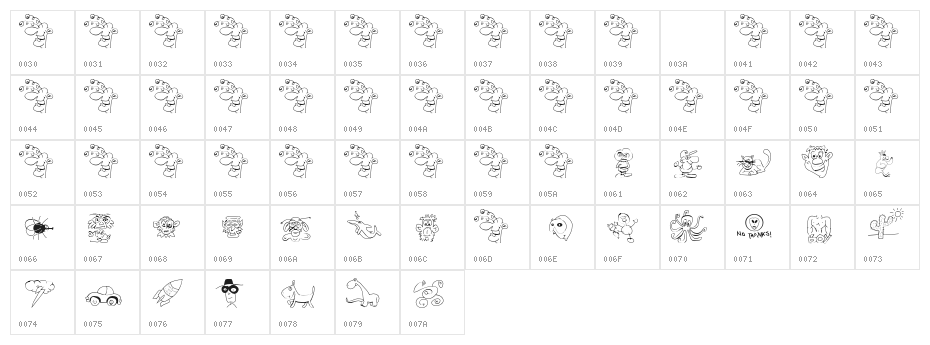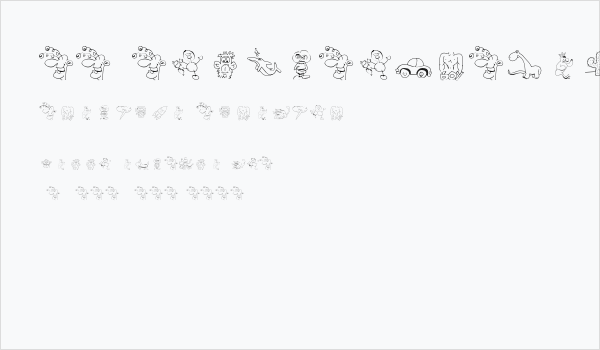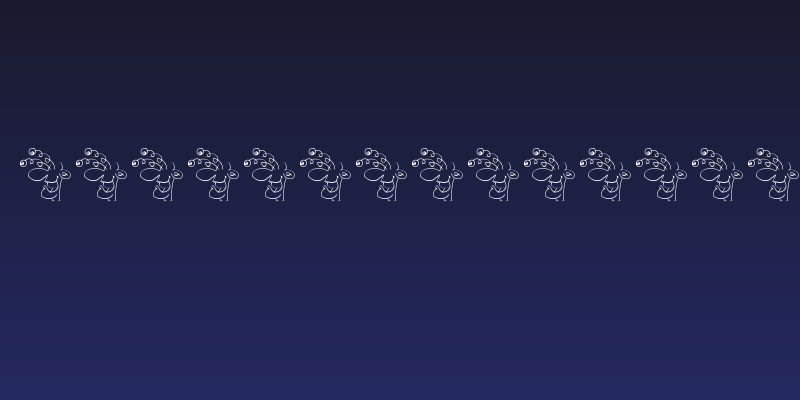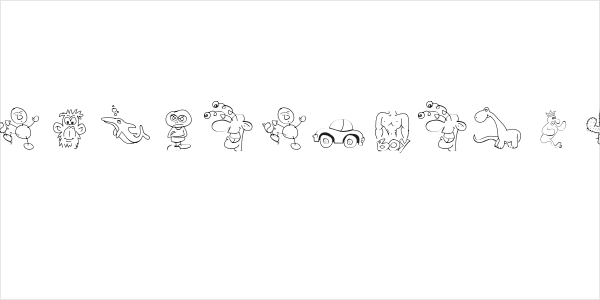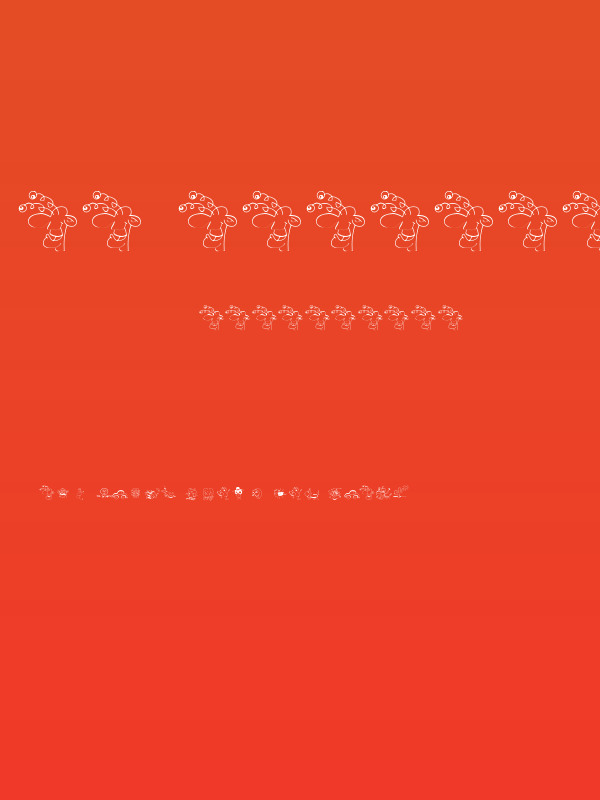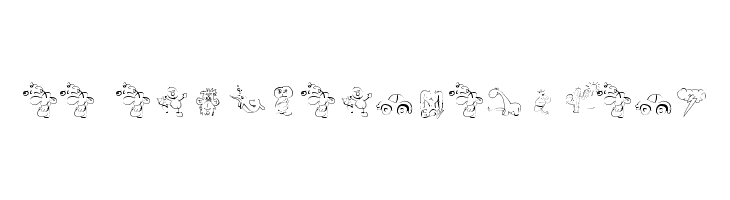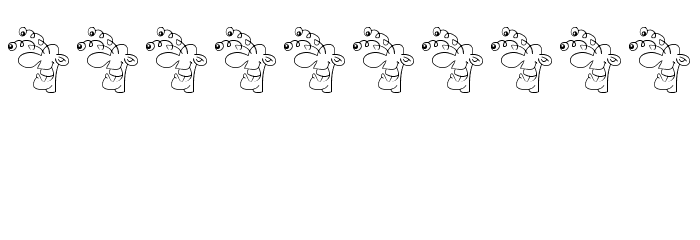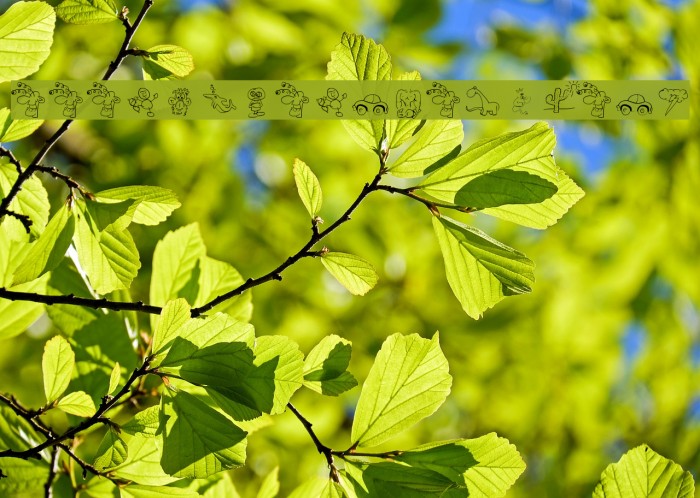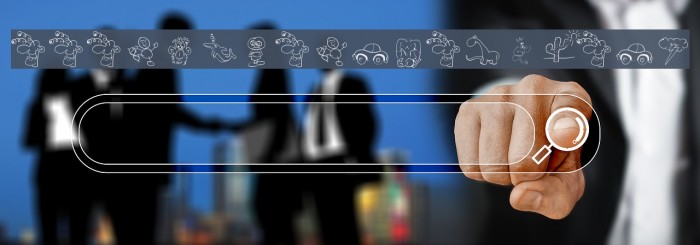
FE-PolkaYourEyesOut Font
| Overall Style | Whimsical, Playful, Cartoonish, Decorative |
| Use Case | Headlines, Posters, Logos, Children's materials, Informal invitations |
| Proposed Projects | Children's books, comic strips, playful posters, greeting cards, creative branding, educational materials. |